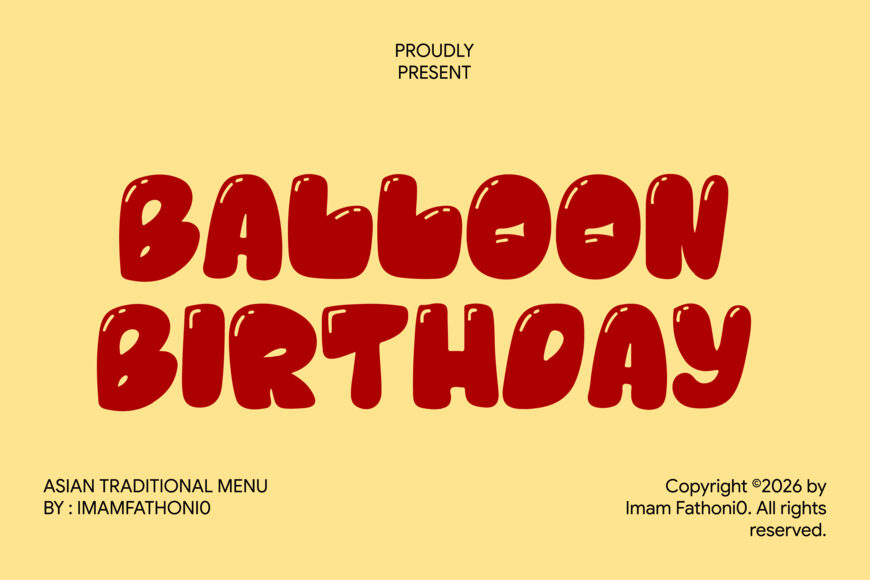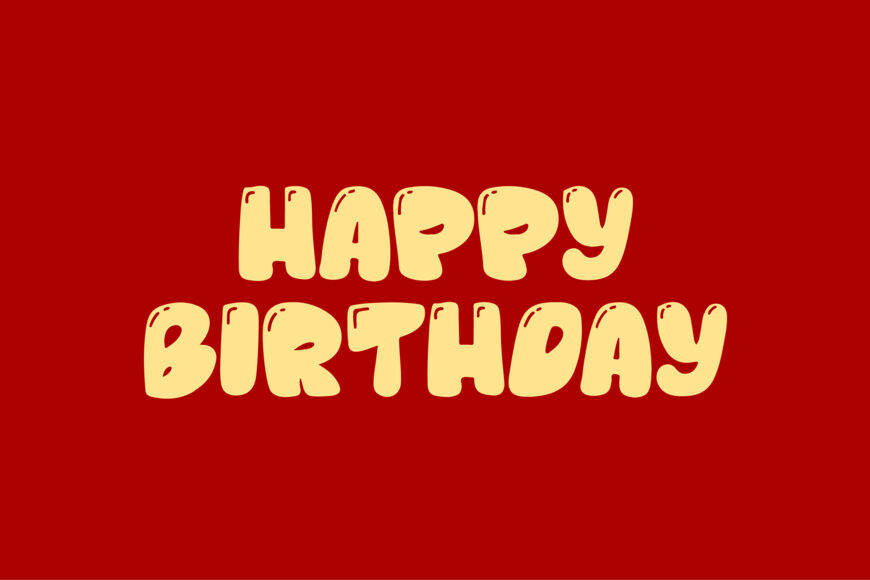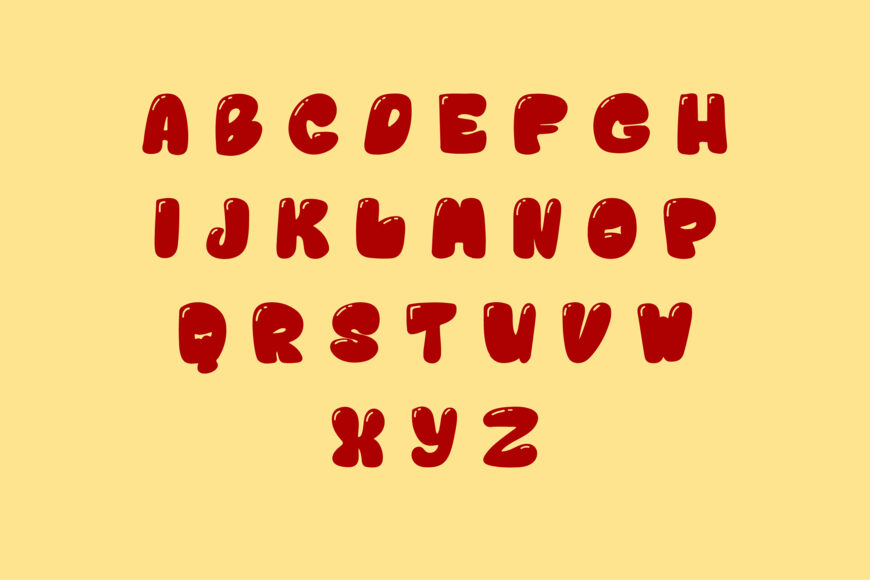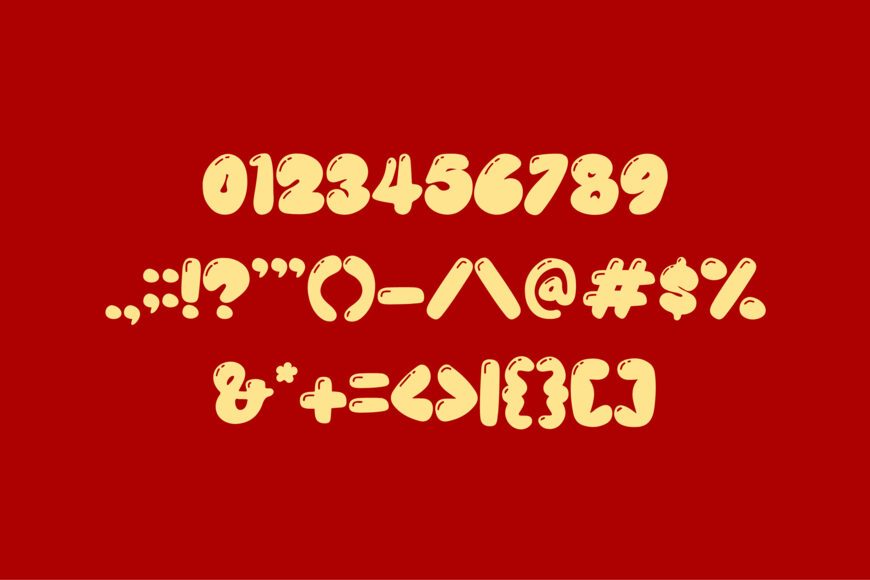
Balloon Birthday is a fun and bubbly display font capturing the joy of celebration. With rounded, playful letterforms inspired by party balloons, it brings a cheerful and festive energy to any design — perfect for birthdays, children’s parties, and holiday events.